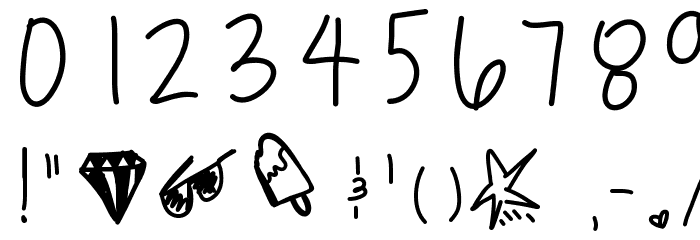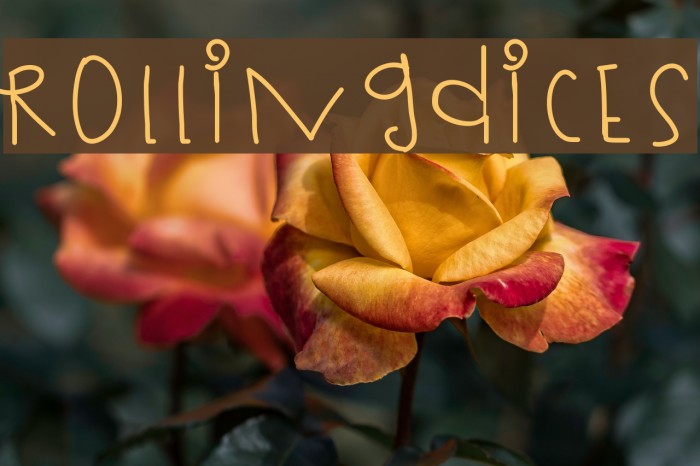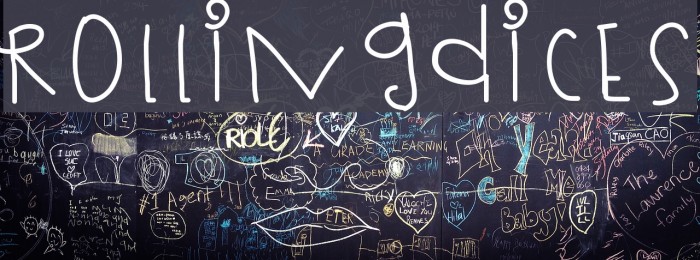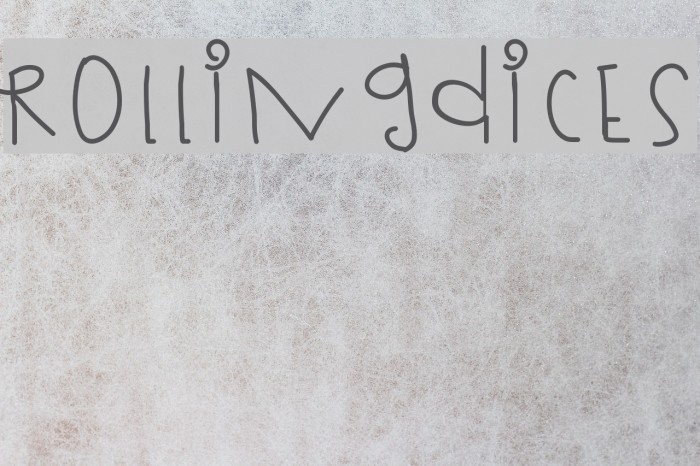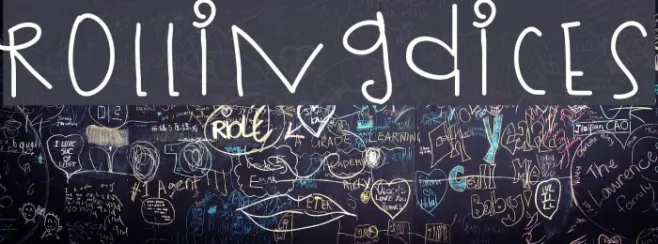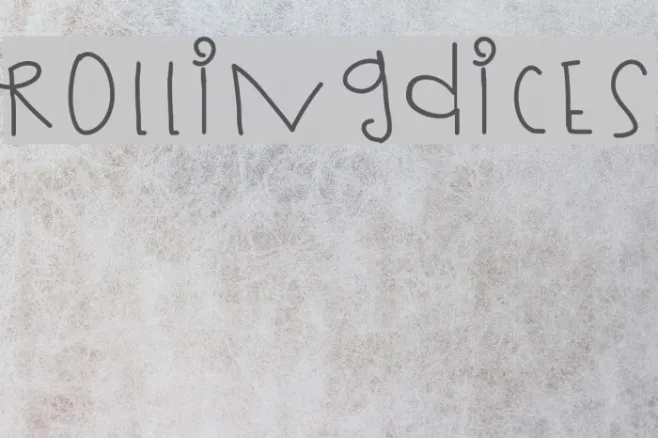
RollingDices Font
This playful and whimsical font features a handwritten style with a casual and informal appearance. The letters are slightly irregular, giving it a charming and unique character. The strokes are thin and consistent, with a slight tilt that adds to its playful nature. The font includes both uppercase and lowercase letters, as well as numbers and a variety of special characters. Its overall look is light-hearted and fun, making it ideal for projects that require a touch of personality and creativity.
A playful, handwritten font with a whimsical and casual style.
- Proposed Projects: Perfect for children's books, greeting cards, playful branding, and creative social media graphics.
- Overall Style: Playful
- Use Case: Headlines, Logos, Creative projects